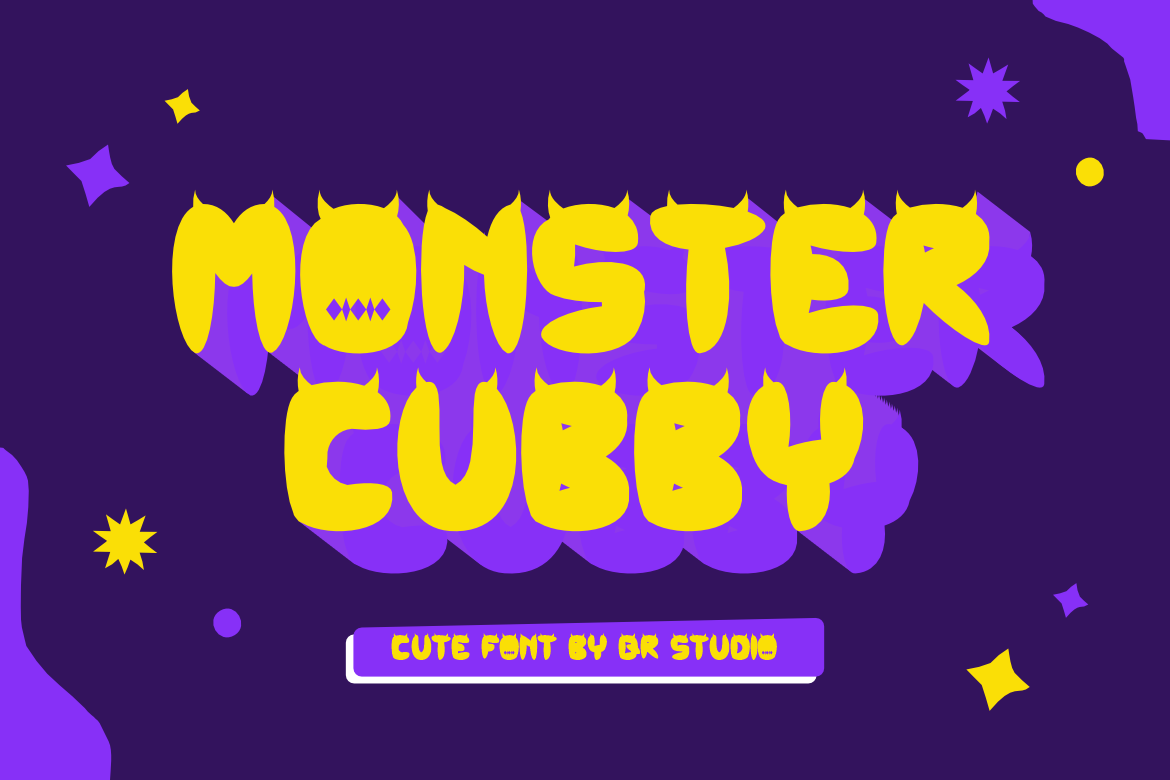
Monster Cubby Font
Monster Cubby Font is a typeface and authentic display font. The font is suitable for any branding project like kids, food, poster, logo, sport, and many more. Outstanding in a wide range of contexts.